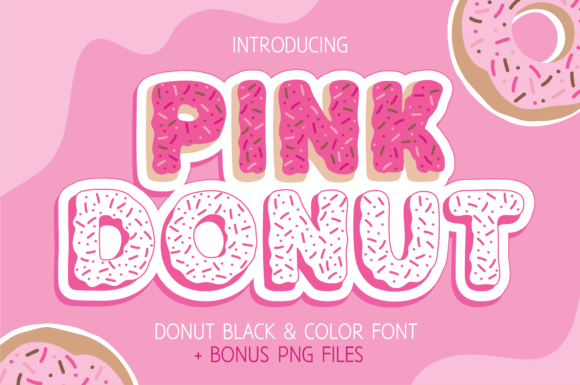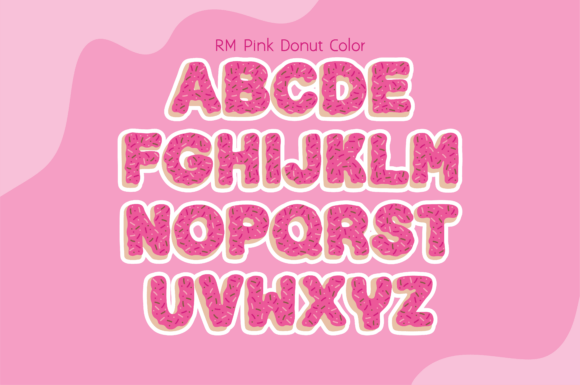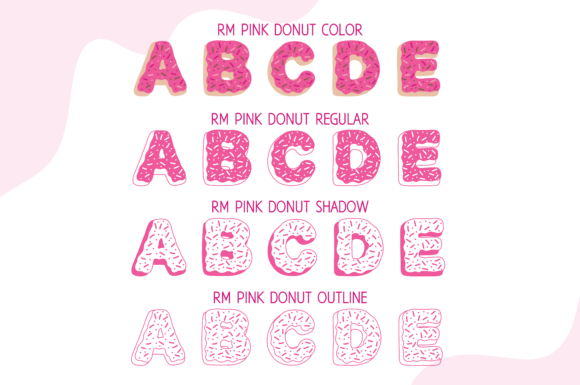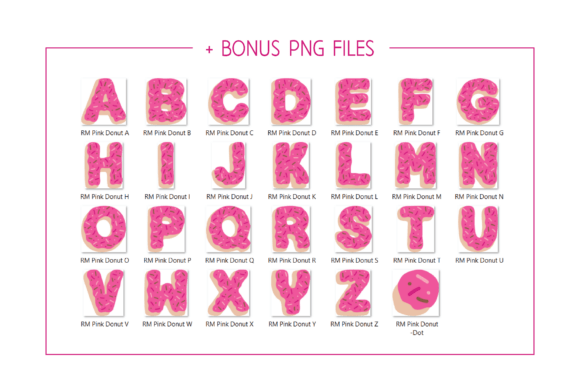
Pink Donut Font: A Cute & Playful Display Font for Cricut Crafts
About the Pink Donut Font
We are excited to introduce Pink Donut Font, a must-have typeface for any serious designer. Pink Donut is a childish, easy-to-read display font that conveys impeccable friendliness. Whether you’re using it for crafts, digital design, presentations, or making greeting cards, this font has the potential to become your favorite go-to font, no matter the occasion!
Pink Donut’s playful character makes it ideal for headlines, short text blocks on posters, and branding for children’s products or playful businesses. It works well in packaging design, particularly for sweets or toys, adding a touch of whimsy. However, its informal style is unsuitable for body text, long paragraphs, or user interfaces where readability is paramount.
Consider pairing Pink Donut with a clean sans-serif like Open Sans for a balanced contrast, or a more playful script font like Pacifico to enhance the friendly vibe. A geometric sans-serif such as Montserrat could provide a modern counterpoint, grounding the design and preventing it from feeling overly childish.
The font’s overall personality is undeniably friendly and approachable, making it perfect for projects needing a lighthearted and inviting feel. Avoid using it in contexts demanding seriousness or professionalism.